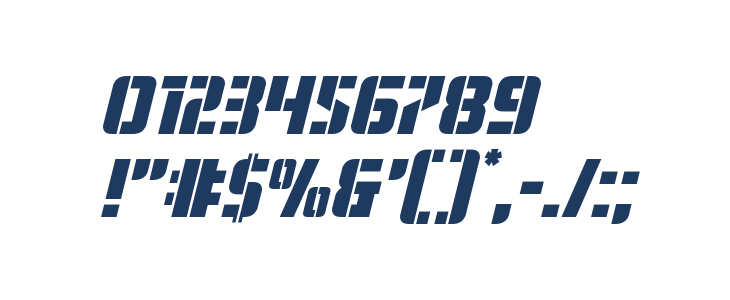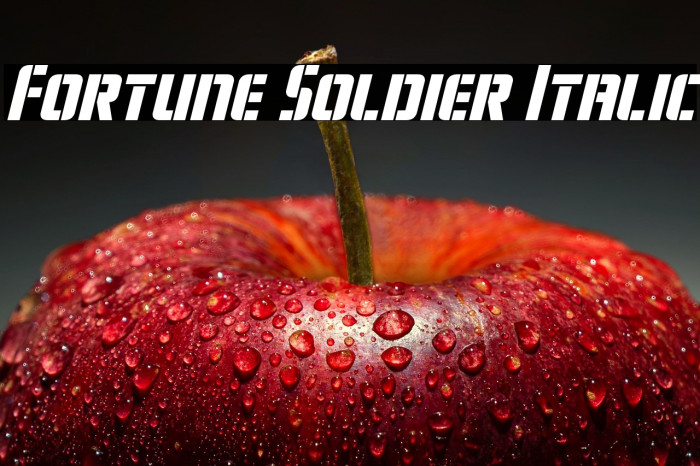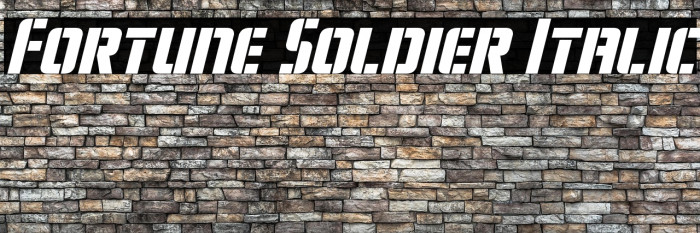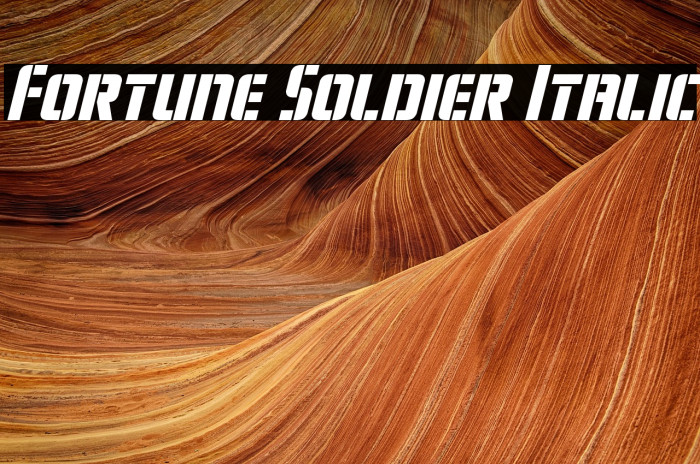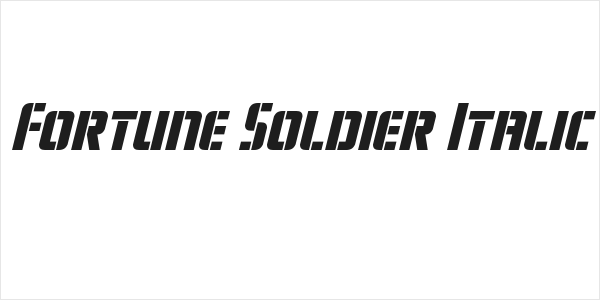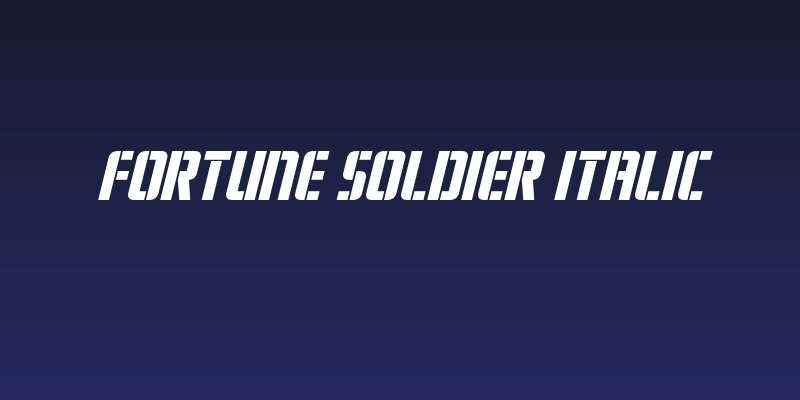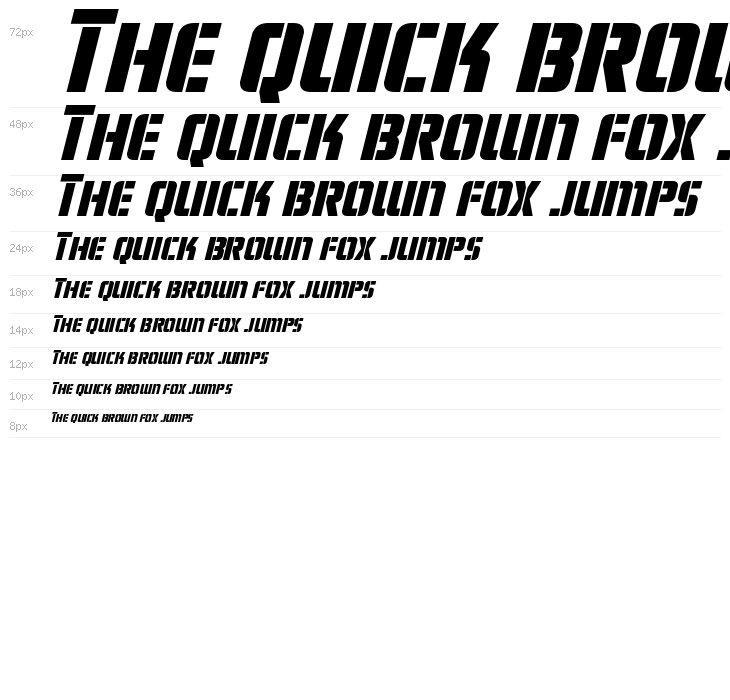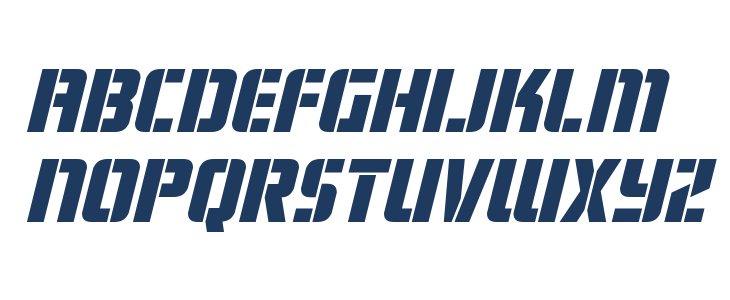
Fortune Soldier Italic Font
Fortune Soldier Italic Description
This font features a bold, italicized style with a strong, impactful presence. The characters are slanted, giving a sense of motion and dynamism. The strokes are thick and consistent, creating a uniform appearance across all letters and numbers. The design is modern and assertive, with a slight futuristic edge, making it suitable for attention-grabbing headlines or branding. The special characters maintain the same boldness and slant, ensuring consistency throughout the font set.